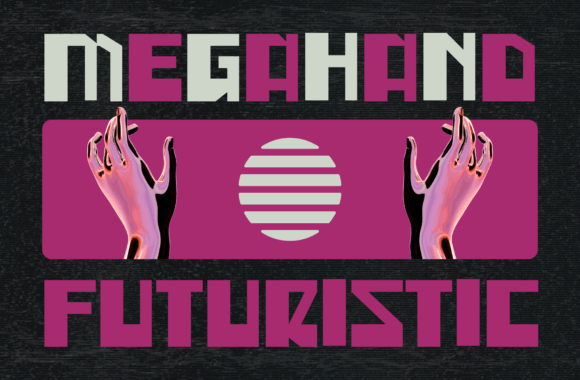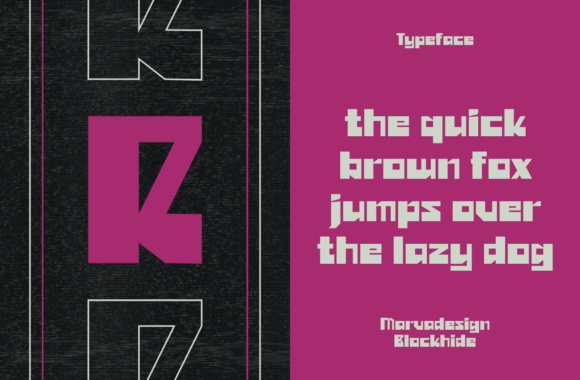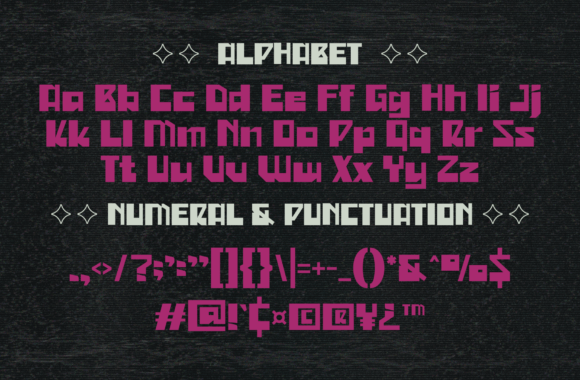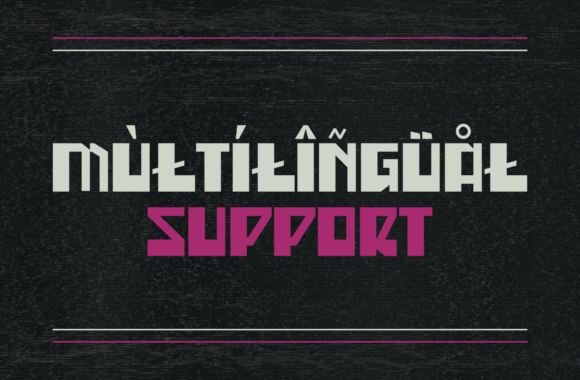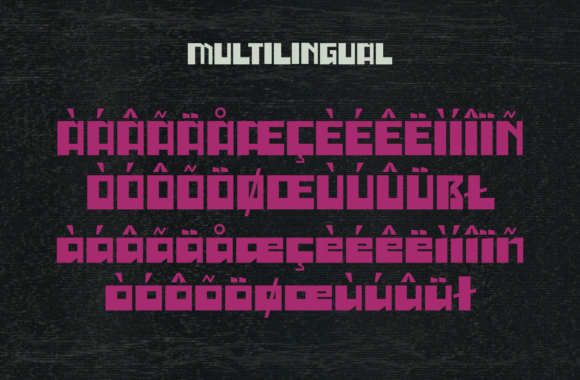
Introducing a New Era in Typography
Do you remember the thrill of creating a logo for your first client? The rush of excitement as you poured your heart into every detail, from the color palette to the typography? It’s a feeling that never gets old, and it’s exactly why we’re excited to introduce our latest creation – Blockhide Font. This modern sans serif font is designed to make a statement, whether you’re working on a logo, template design, or product branding.
As a designer, you know how important it is to have the right tools at your disposal. That’s why we’ve crafted Blockhide Font to be versatile and authentic, suitable for a wide range of contexts. With this font, you’ll be able to bring your vision to life in a way that’s both bold and elegant.
Blockhide Font Key Features
- Font Family: Blockhide Font is a sans-serif font family designed for digital use. It comes in various weights and styles, including bold, italic, and regular.
- Unique Characteristics: Blockhide Font features a distinctive block-like structure, with clean lines and geometric shapes that make it highly readable and versatile.
Blockhide Font Review
Overall, I’m impressed with Blockhide Font, and here’s why:
- ✨ Unique design: Blockhide Font’s geometric shapes and bold lines make it stand out from the crowd.
- ✨ High legibility: Despite its bold nature, the font remains highly legible, even at smaller sizes.
- ✨ Versatile: Blockhide Font works well in both digital and print formats, making it a great addition to any design project.
- ⚠️ Limited language support: Blockhide Font may not be optimized for languages with complex scripts, which could lead to display issues.
- ⚠️ Limited font sizes: While the font is highly legible, it may not scale well to extremely large sizes, which could result in a loss of detail.
- ⚠️ Limited customization options: Blockhide Font’s design is quite rigid, making it difficult to customize or modify the font’s appearance.
Overall, I think Blockhide Font is a great addition to any designer’s toolkit. Its unique design and high legibility make it a versatile choice for a wide range of projects. However, designers should be aware of its limitations and plan accordingly.
For a bold, edgy look, use the Blockhide Font for headings and titles.
For a striking contrast, pair the Blockhide Font with a clean sans-serif font for body text.
For a dramatic effect, use the Blockhide Font for titles and headings in presentations and documents.
The Blockhide Font is ideal for:
- Typography-heavy designs
- Edgy and bold branding
- Creating contrast in designs
Experiment with the Blockhide Font to add a unique touch to your designs.
Alternatives to Blockhide Font for Designers
Open Sans is a clean and modern sans-serif font, perfect for digital products, websites, and mobile apps. It’s highly legible and works well in various screen resolutions. Use Open Sans when you need a font that’s both modern and easy to read.
Comparison to Blockhide Font: Open Sans is more modern and minimalist compared to Blockhide Font, which has a more rustic feel. Open Sans is also more versatile and works well in a wider range of design contexts.
Lato is a sans-serif font that’s highly legible and works well in both digital and print media. It has a clean and modern feel, making it perfect for corporate identities, websites, and mobile apps. Use Lato when you need a font that’s both elegant and easy to read.
Comparison to Blockhide Font: Lato has a more elegant and refined feel compared to Blockhide Font, which has a more rustic and vintage feel. Lato is also more versatile and works well in a wider range of design contexts.